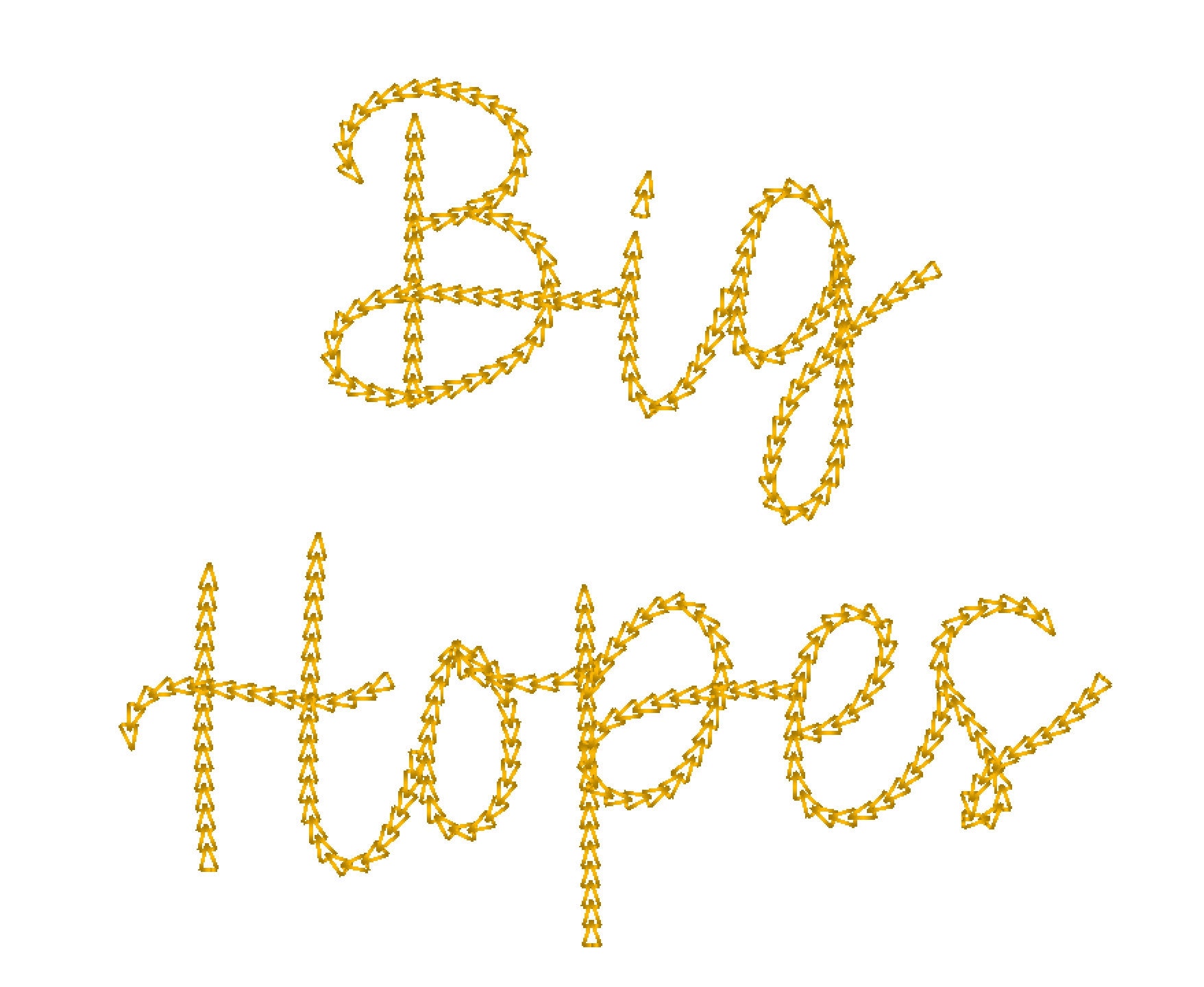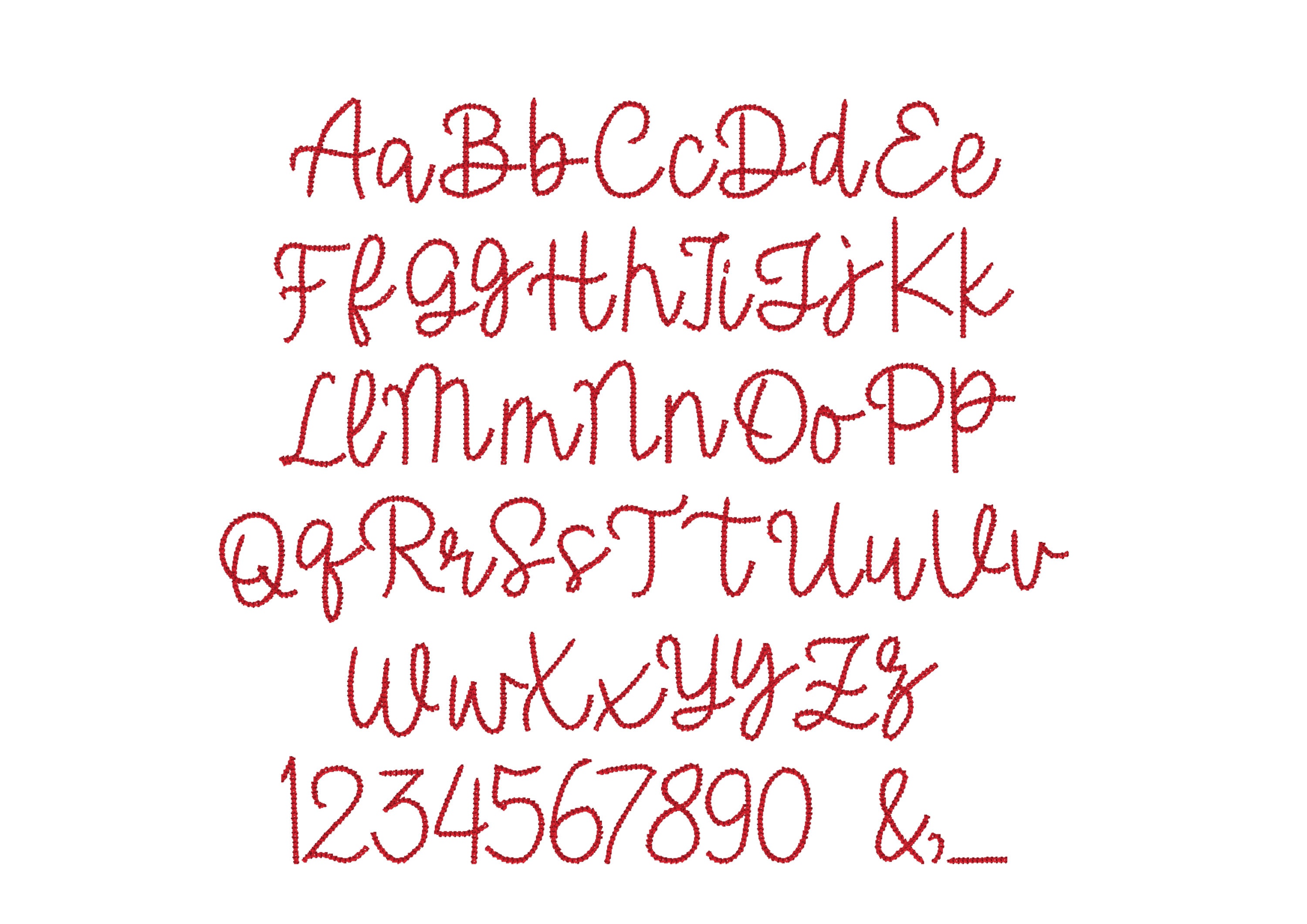
Sweatshirt hoodie Mama chain stitch handwritten calligraphy Font alphabet letters machine embroidery designs sizes 2" thru 4" inches also BX included
Uppercase and lowercase letters, numbers, and punctuation.
Stitches out amazing. It is the perfect font for the popular neck embroidered sweatshirts.